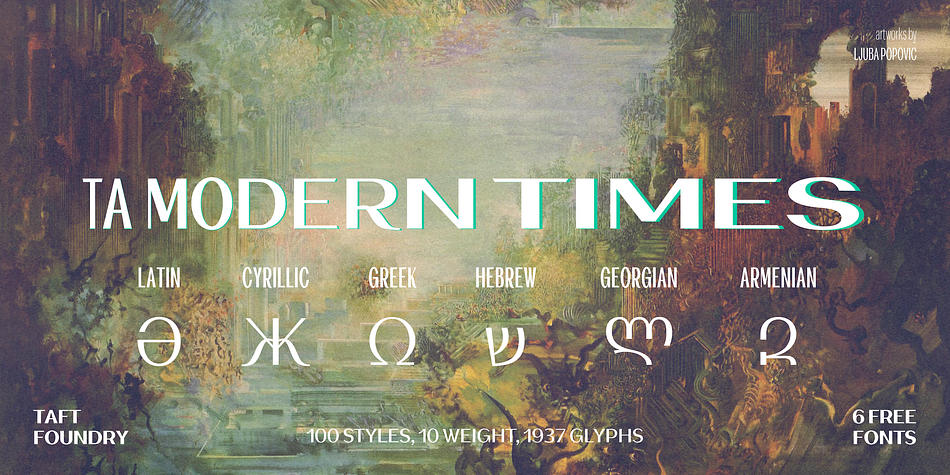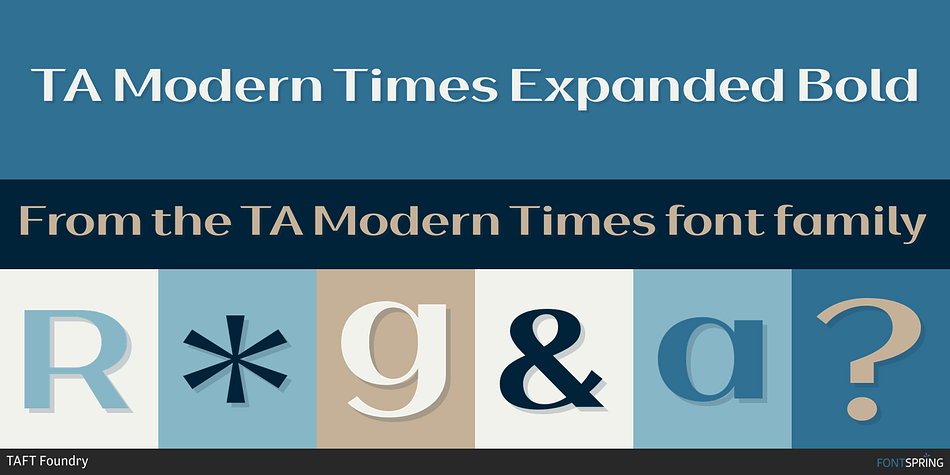
TA Modern Times Expanded Bold
TA Modern Times is an art deco and sans serif font family. This typeface has one hundred and two styles and was published by TAFT Foundry.
The TA Modern Times font has recently been upgraded to version 3, introducing several significant additions and improvements. This update incorporates the Khinalyg language alongside Vietnamese, Georgian, and Armenian alphabets. Moreover, Bulgarian and Serbian forms for the Cyrillic alphabet have been integrated.
In this version, an anchor point has been included, enhancing the font’s usability. Technical bugs have been addressed, and adjustments have been made to certain letters for improved clarity and aesthetics. Additionally, Opentype features have undergone enhancements, enriching the font’s versatility.